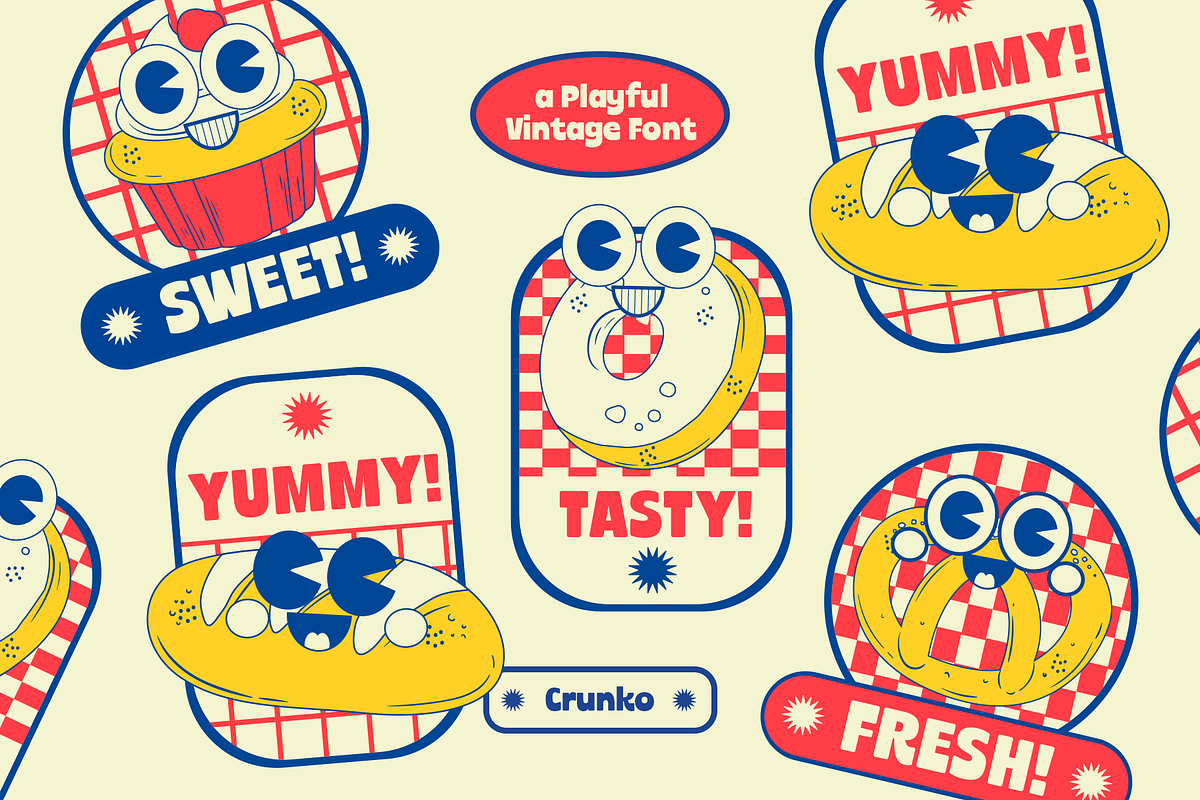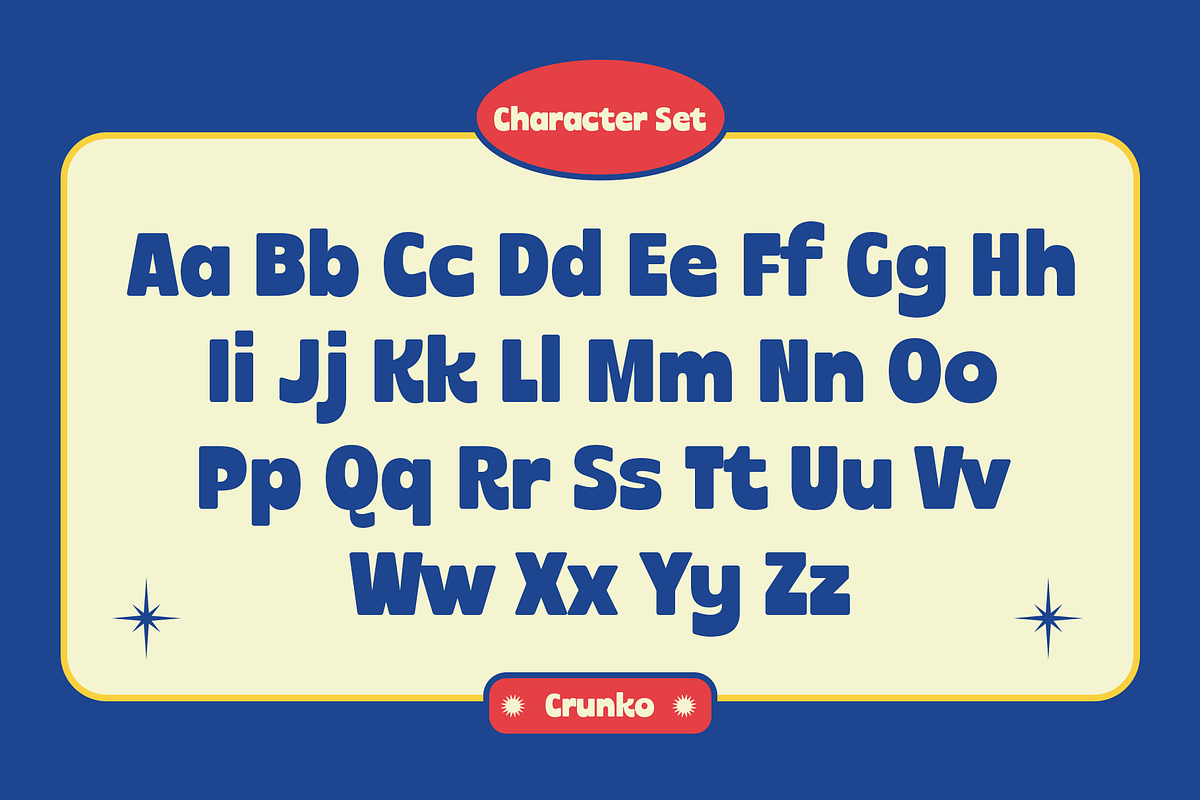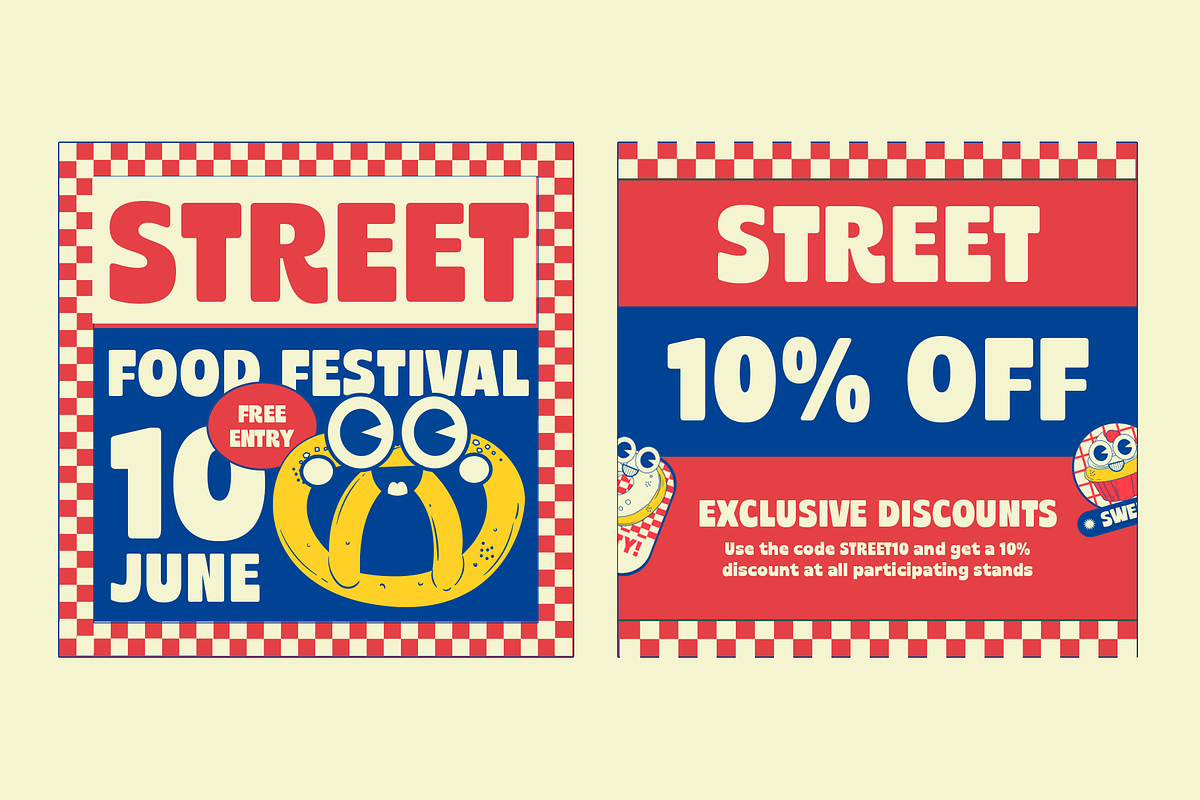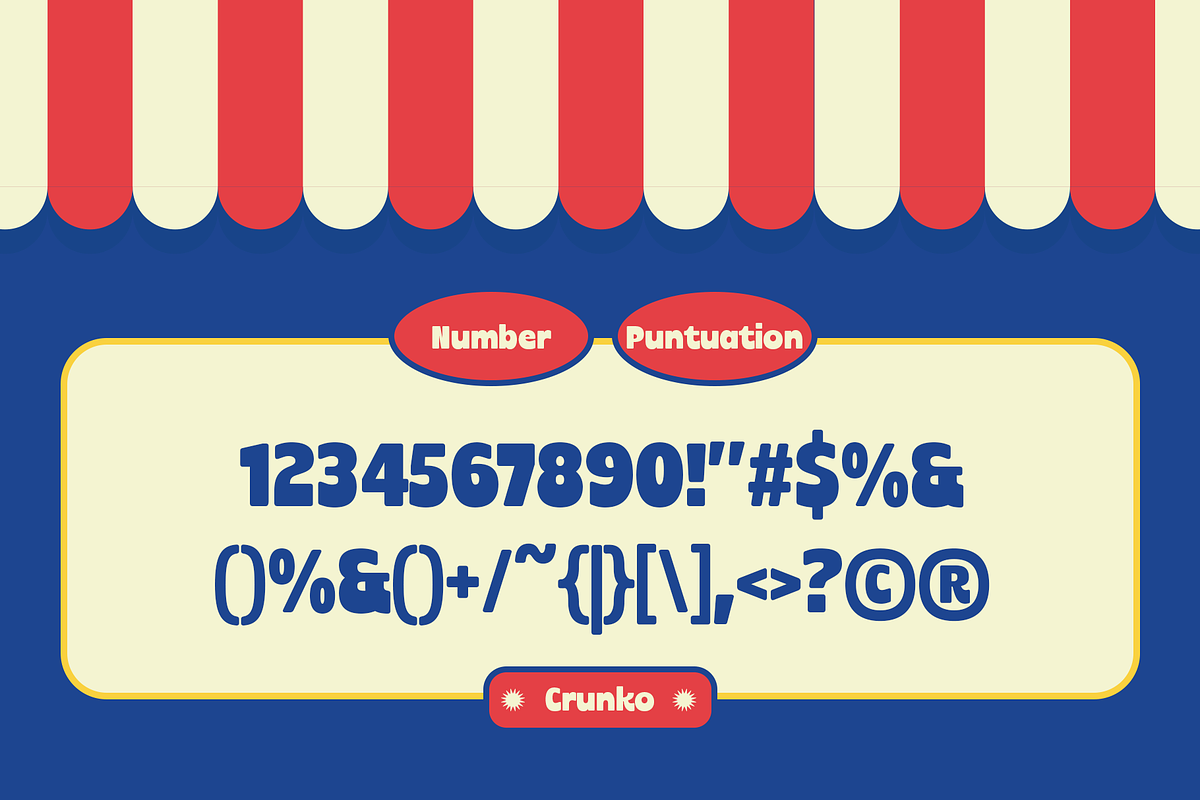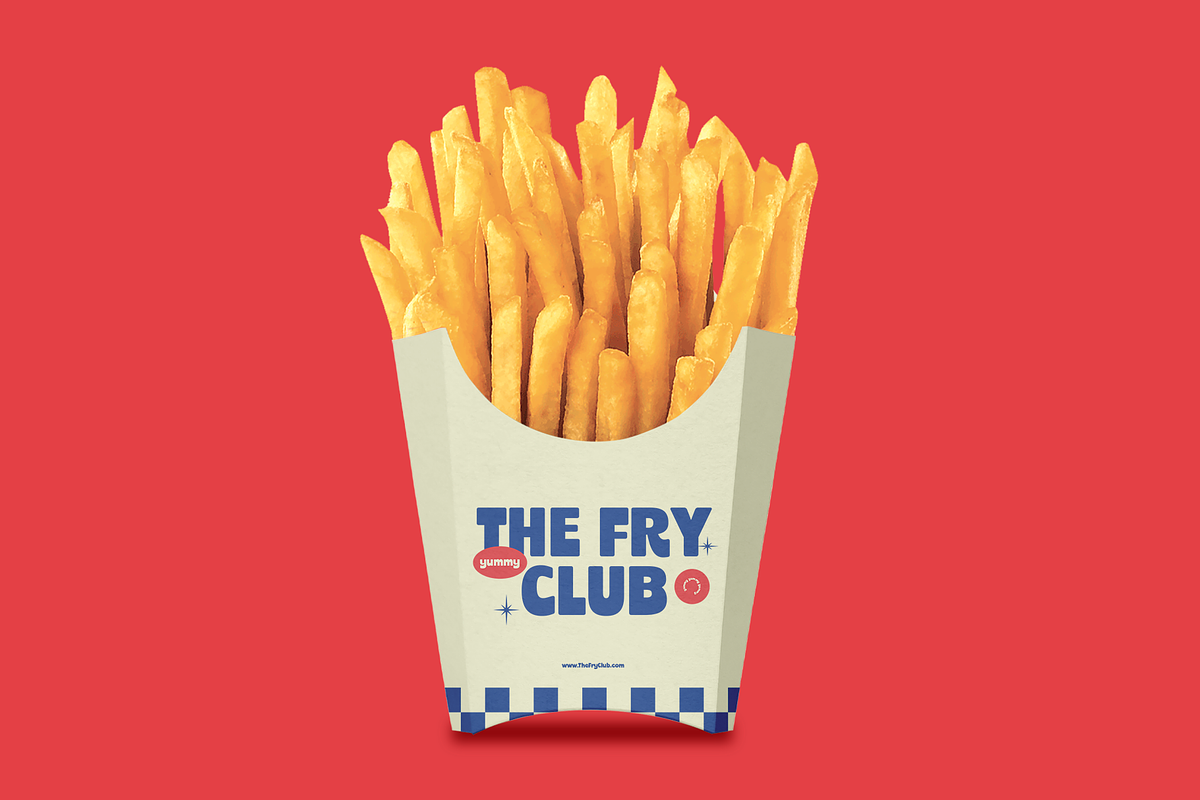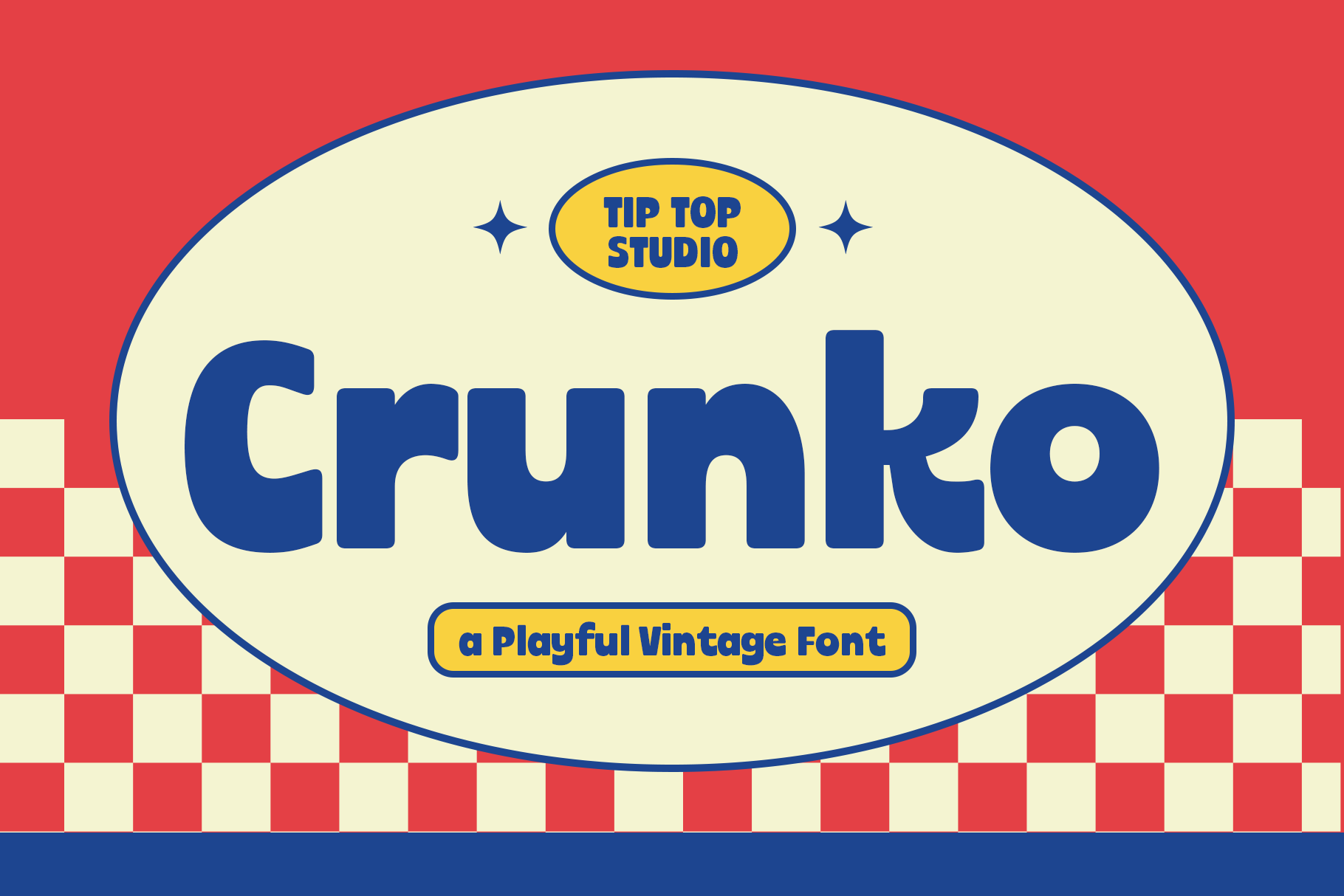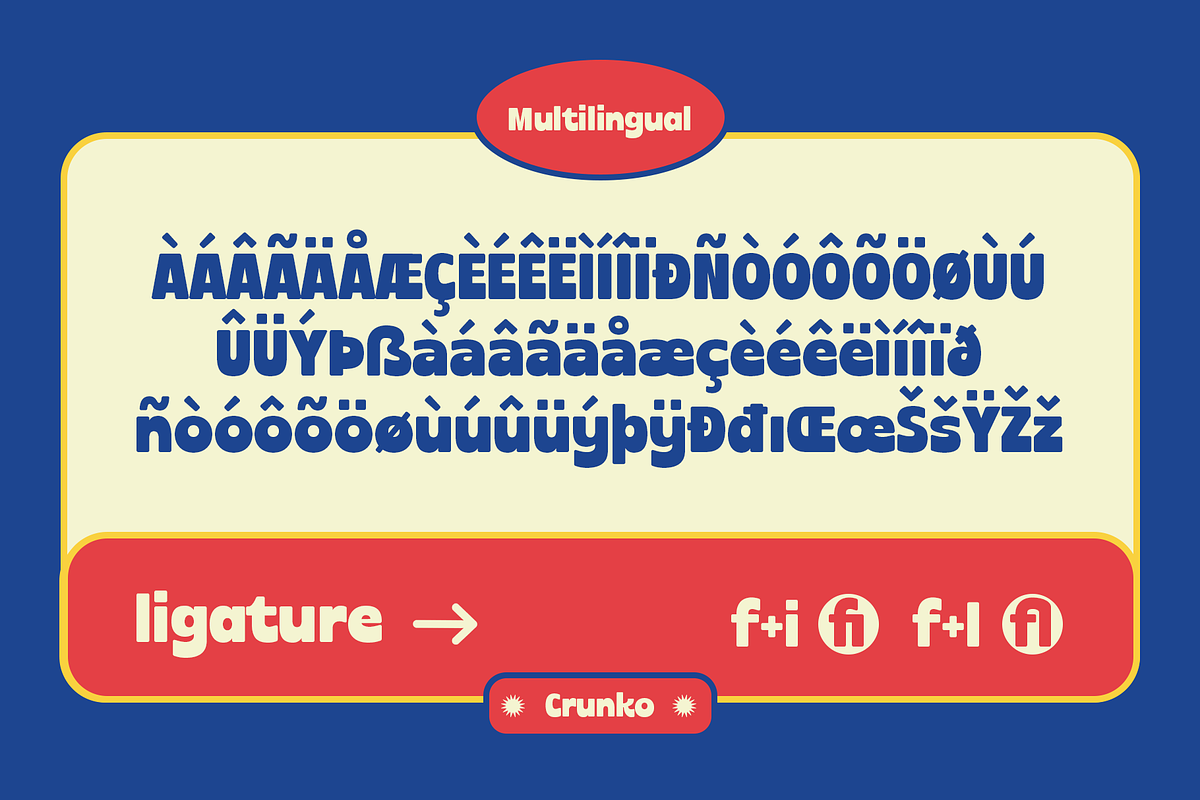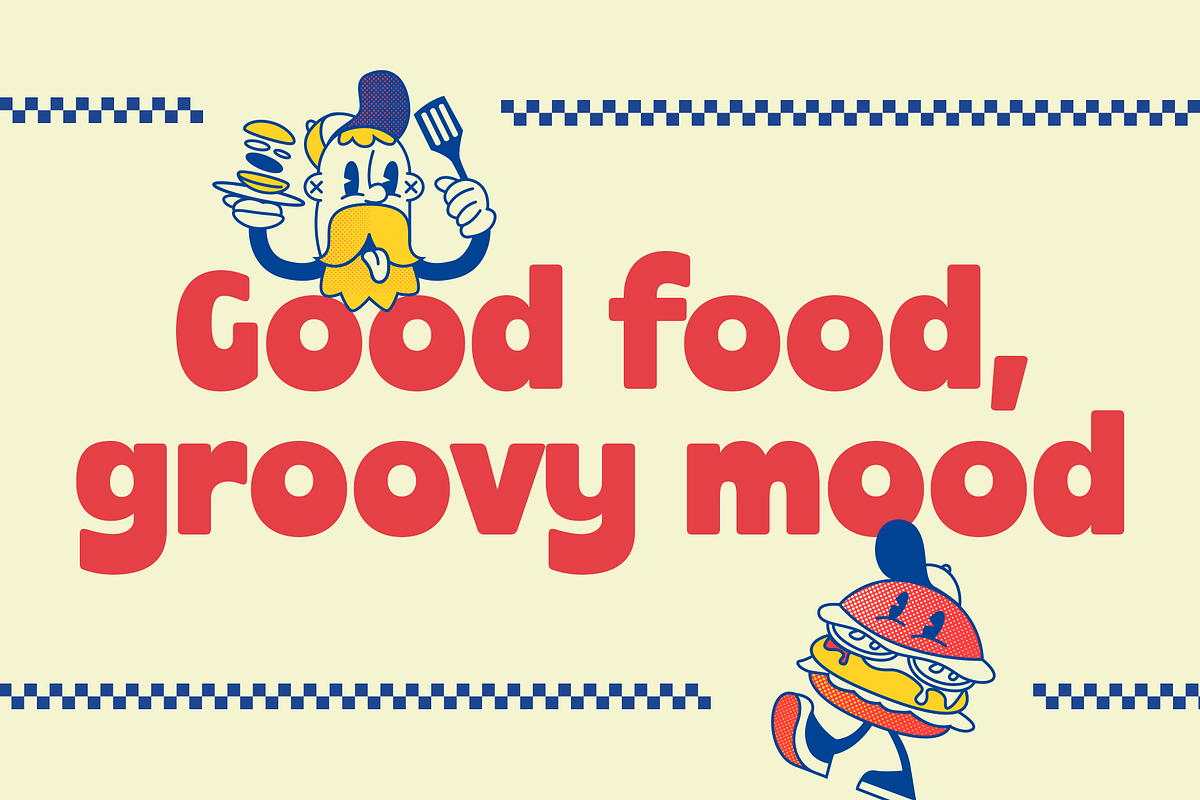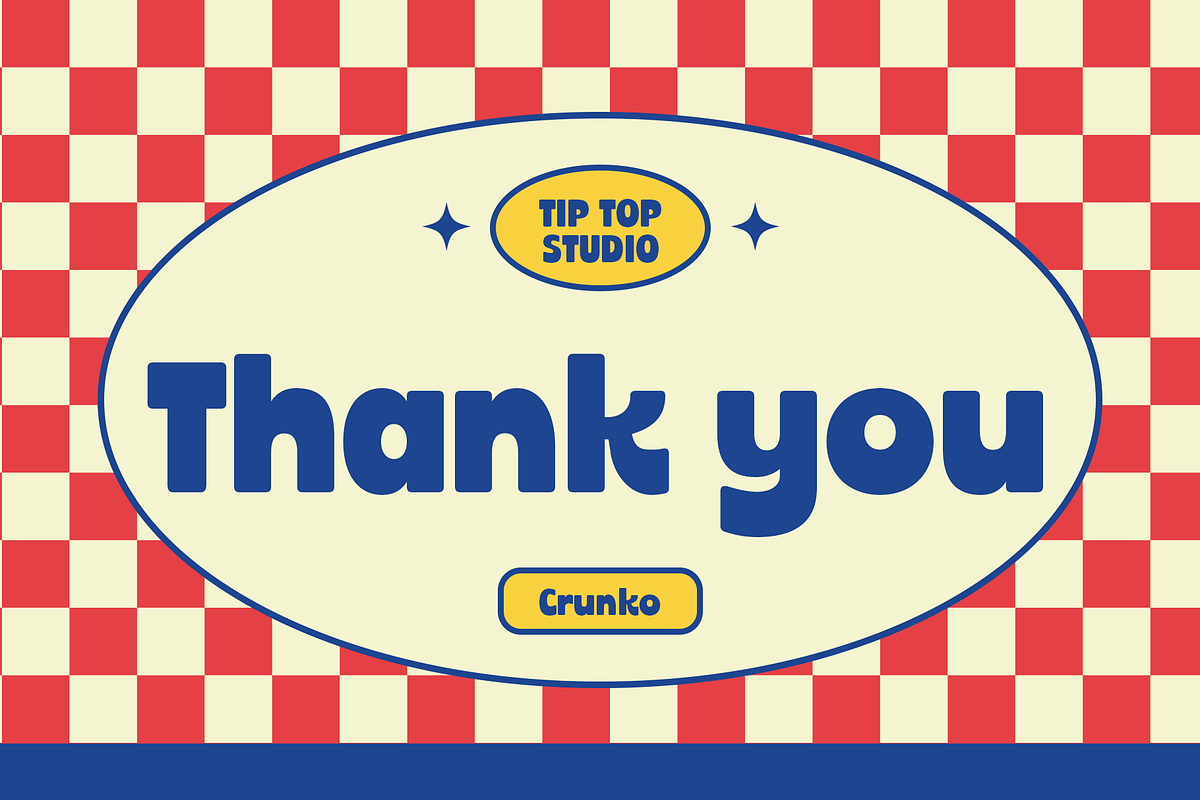
Crunko – Cute Retro Sans Font
Crunko – Cute Retro Sans Font Step back in time with Crunko, a playful, chunky retro sans serif that brings a fun, nostalgic vibe to any project. Its bold, rounded shapes and slightly exaggerated proportions make it perfect for headlines, posters, logos, packaging, and social media graphics that need a touch of vintage charm with a modern twist. Crunko combines readability with personality, giving your designs a cheerful, eye-catching presence.
Crunko – Cute Retro Sans Font features:
- Punctuation & Numbers